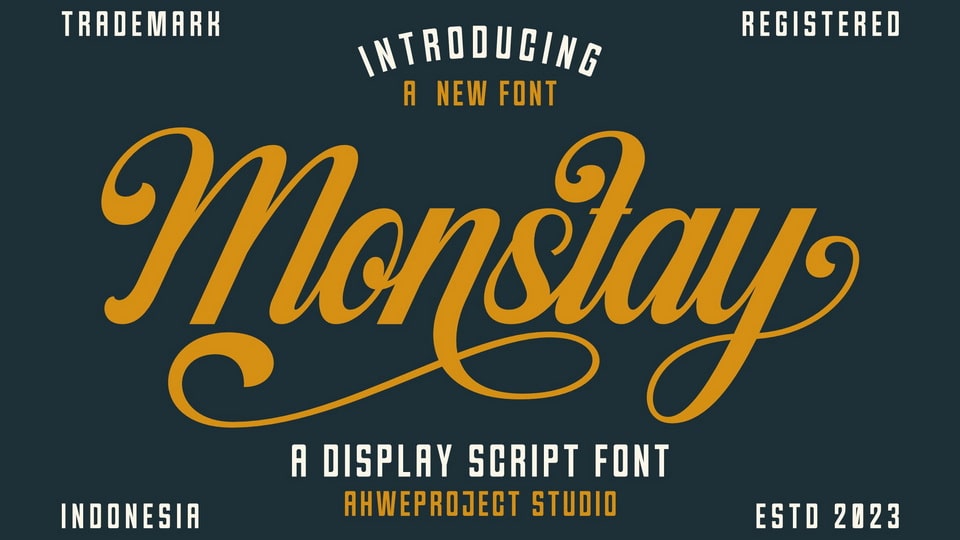
Download Monstay font, an elegant script typeface that embodies the artistry of calligraphy with a touch of grace and a perfect balance between elegance and luxury.